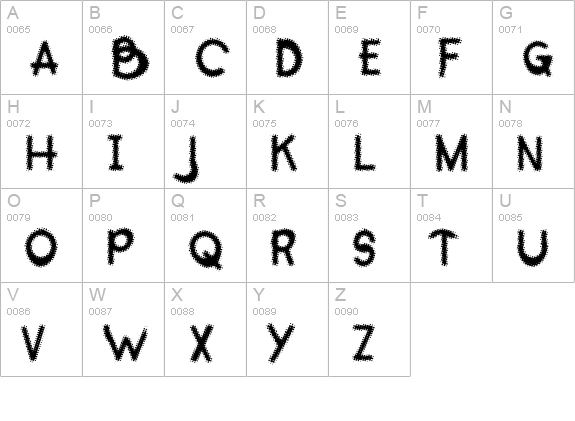
OccidentalDismount-Halftone Font Details
OccidentalDismount-Halftone font is a unique and eye-catching typeface that combines vintage charm with a modern twist. Its halftone effect adds a touch of artistic flair, making it perfect for various design projects. This font exudes a sense of nostalgia while still appearing fresh and contemporary. What makes OccidentalDismount-Halftone font even more appealing is that it is available for free download at FontsMarket.com. This means you can easily access and use this stylish font in your creations without any cost. Whether you are working on posters, logos, invitations, or any other design, OccidentalDismount-Halftone font will surely make your text stand out with its distinctive look. Don't miss out on the opportunity to enhance your designs with this versatile and visually appealing font. Download OccidentalDismount-Halftone font for free today and let your creativity shine!